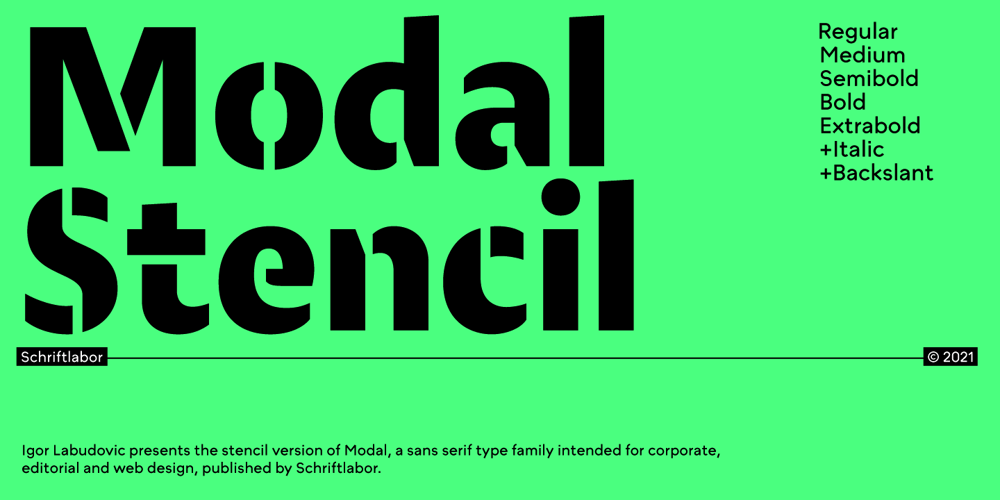
Modal Stencil Font Family was designed by Igor Labudovic and published by Schriftlabor. Modal Stencil contains 15 styles and family package options. Modal Stencil is the companion to Modal type family. It brings an extra expression for different uses. It can be used for Display better than Modal. It has all the styles that Modal so it can be used together harmoniously.